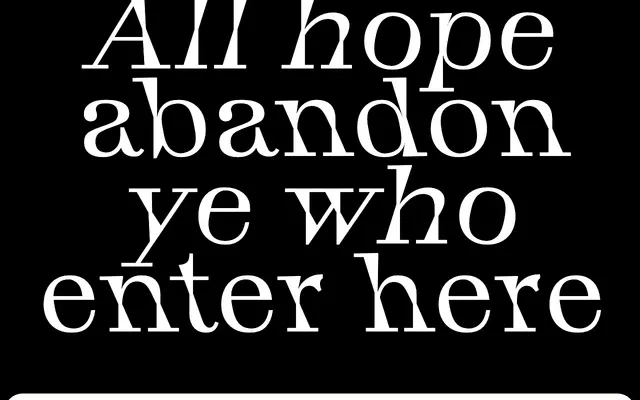
Totentanz
Bureau Brut · Yoann Minet · 2017
A Didone-derived typeface by Yoann Minet that replaces fashion-magazine elegance with tombstone inscription and catacomb stencil as its reference points, producing a three-style family whose slanted cuts contort letterforms rather than simply inclining them.
Designed by Yoann Minet and published by Bureau Brut in 2017, Totentanz takes the Didone skeleton as a structural starting point but reduces contrast and increases sturdiness to suit running text as well as display use. In place of a conventional italic, the family offers a Slanted style whose strokes are crossed and deformed, and a Backslanted counterpart that leans the opposite direction, both drawing on the medieval Totentanz motif of Death paired with every rank of society. The conceptual framing is rigorous: the non-calligraphic, anti-cursive slanted styles are a direct rebuke to the hand gesture underlying most italic traditions.
Rooted in the Didone classification with high contrast and linear serifs, though deliberately departing from canonical elegance towards tombstone engraving and catacomb stencil references. The unconventional slanted styles further distinguish it from orthodox Didone models.